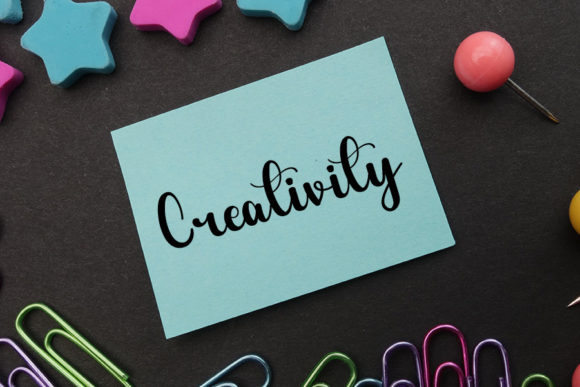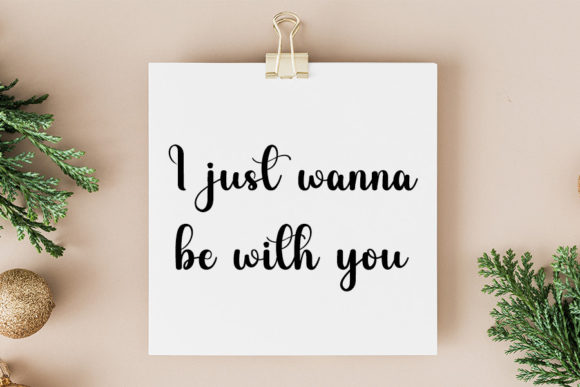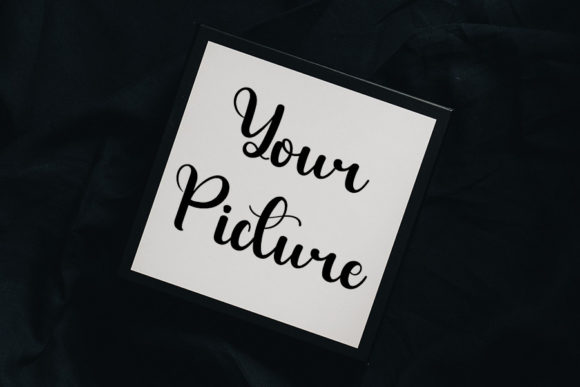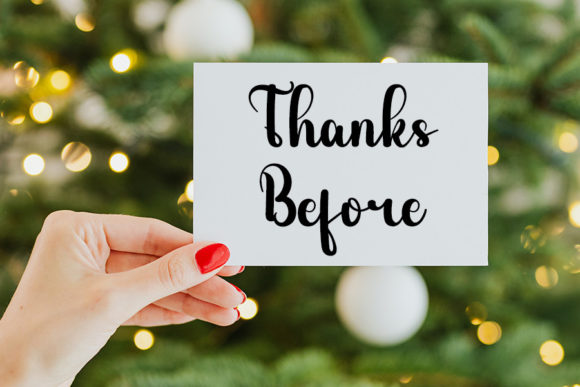
Introduction to Rainbow Springkles Font
As a designer, you know the thrill of discovering a new font that perfectly captures the essence of your creative vision. It’s that moment when the words on your screen come alive, and your project takes on a whole new level of sophistication. For me, that moment happened when I stumbled upon the Rainbow Springkles Font – a stunning, handwritten font that has become an essential design resource.
With its contemporary atmosphere and impeccable form, inspired by timeless classic calligraphy, the Rainbow Springkles Font is a game-changer for designers looking to elevate their high-quality projects. Whether you’re working on a creative project that requires a touch of whimsy or a design that demands elegance, this font is sure to deliver. And the best part? It’s available for free download, complete with a transparent background, making it easy to integrate into your designs.
So, let’s dive into the world of Rainbow Springkles Font and explore what makes it a valuable addition to your design toolkit.
Key Features of Rainbow Springkles Font
- Unique, whimsical design with a mix of colorful, hand-drawn elements and a spring-inspired theme.
- Transparent background and customizable color options to suit various design needs.
- Perfect design resource for creative projects, such as greeting cards, party invitations, and children’s book illustrations.
- Great for adding a touch of personality and fun to any design project, from digital to print media.
Honest Review: Rainbow Springkles Font
As a designer, I’m always on the lookout for unique and eye-catching design resources to elevate my creative projects. The Rainbow Springkles Font is definitely a standout in my collection. ✨
I downloaded this font for free from a reputable design website, and I was impressed by its high quality. The Rainbow Springkles Font is a playful, cursive script that’s perfect for adding a touch of whimsy to your designs. Its transparent background makes it easy to use on any background, which is a huge plus.
Here are some features that work well:
- Playful and creative vibe that’s perfect for kids’ projects or branding
- High-quality design that’s clear and easy to read
- Transparent background for seamless integration with any design
- Only a single font style, which may limit its versatility
- May not be suitable for formal or corporate designs
- Requires a bit of tweaking to get the perfect spacing and alignment
Overall, I’m really happy with the Rainbow Springkles Font. It’s a great addition to my design library, and I’ve already used it in several projects. If you’re looking for a fun and playful font to add some personality to your designs, I’d definitely recommend giving it a try.
The Rainbow Springkles Font is a versatile design resource that can be used in a variety of creative projects, including:
– Blog posts
– Infographics
– Party invitations
– And more!